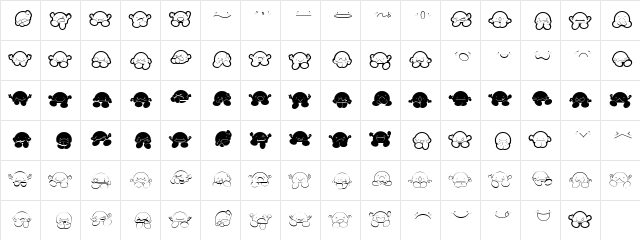
P22 Ching Mang Regular
Design Context for P22 Ching Mang Typeface
P22 Ching Mang is a composed and adaptable typeface that performs quietly and consistently across a wide range of design contexts.